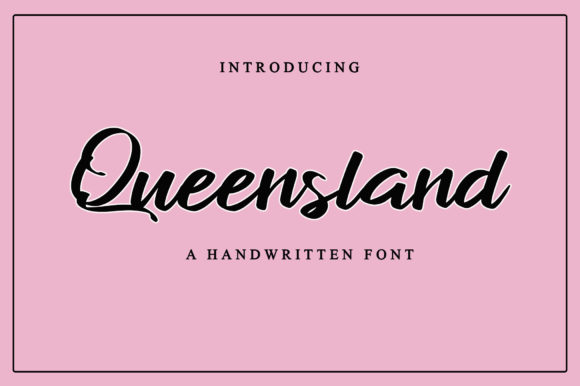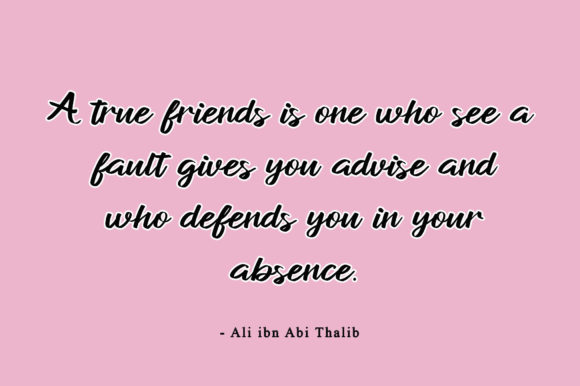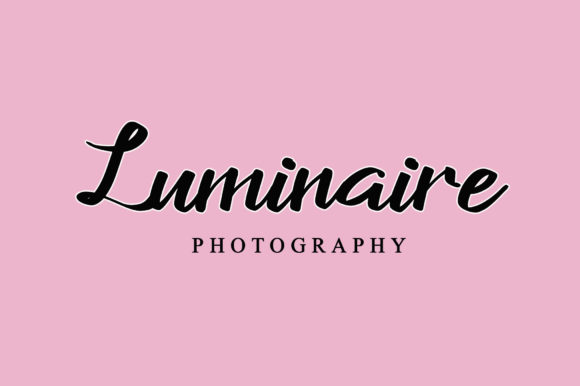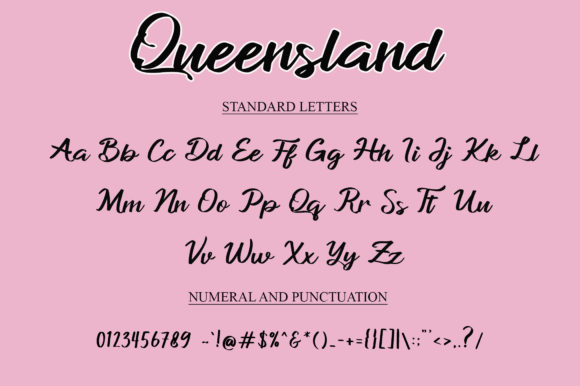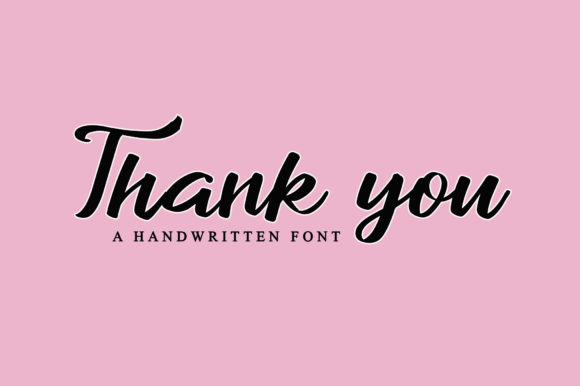
Queensland Font
About Queensland Font
Queensland is a romantic and sweet calligraphy typeface with characters that dance along the baseline. It has a casual, yet elegant touch. This font is PUA encoded which means you can access all of the glyphs and swashes with ease!